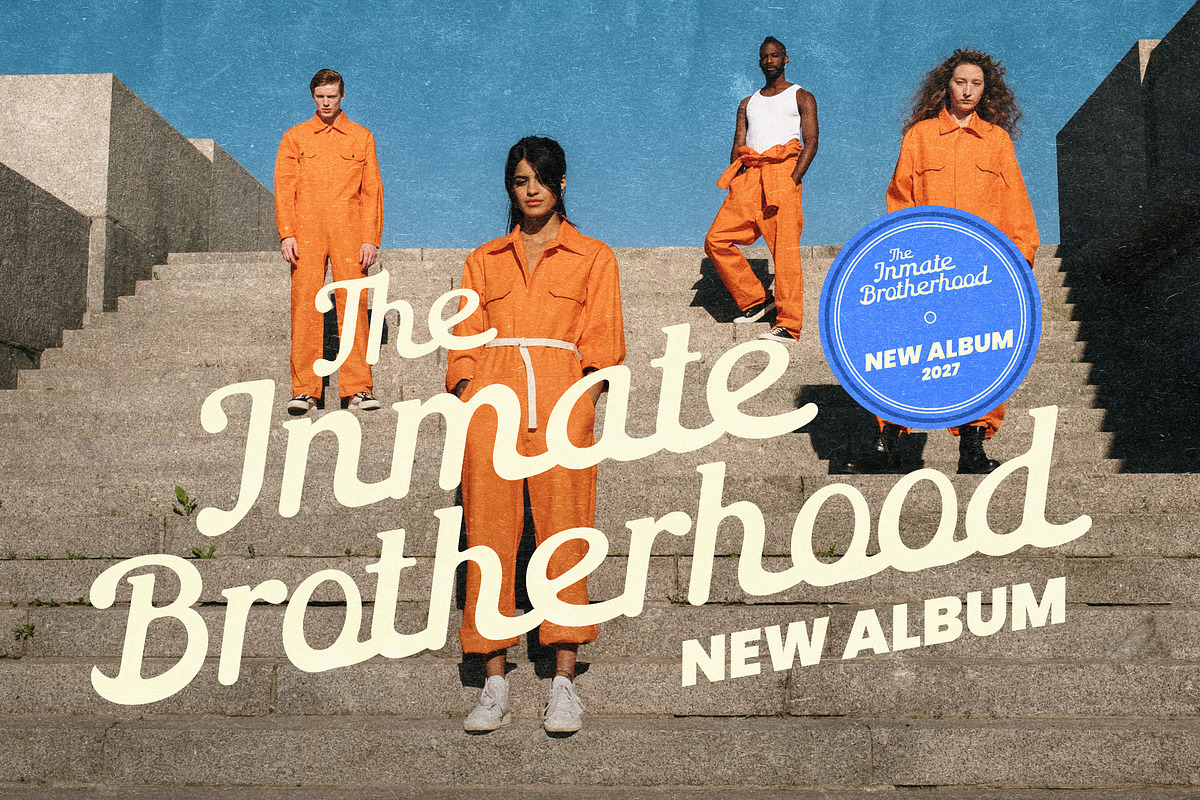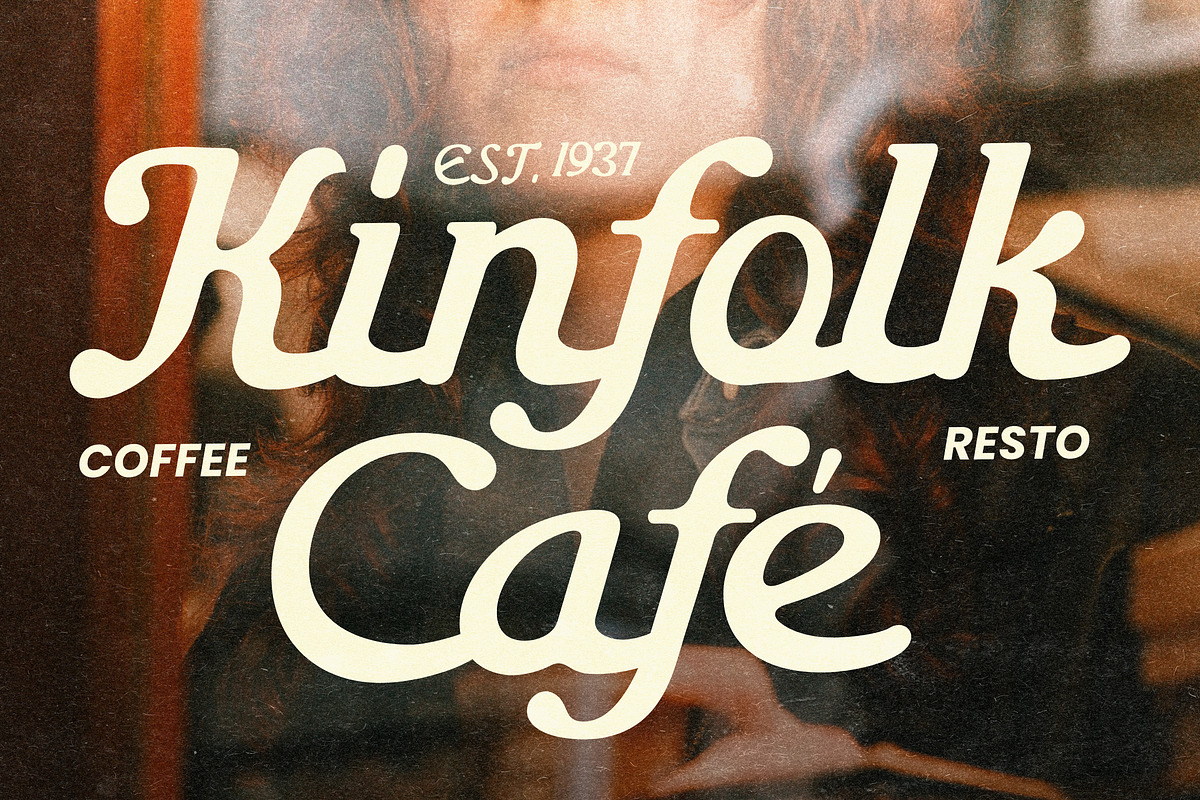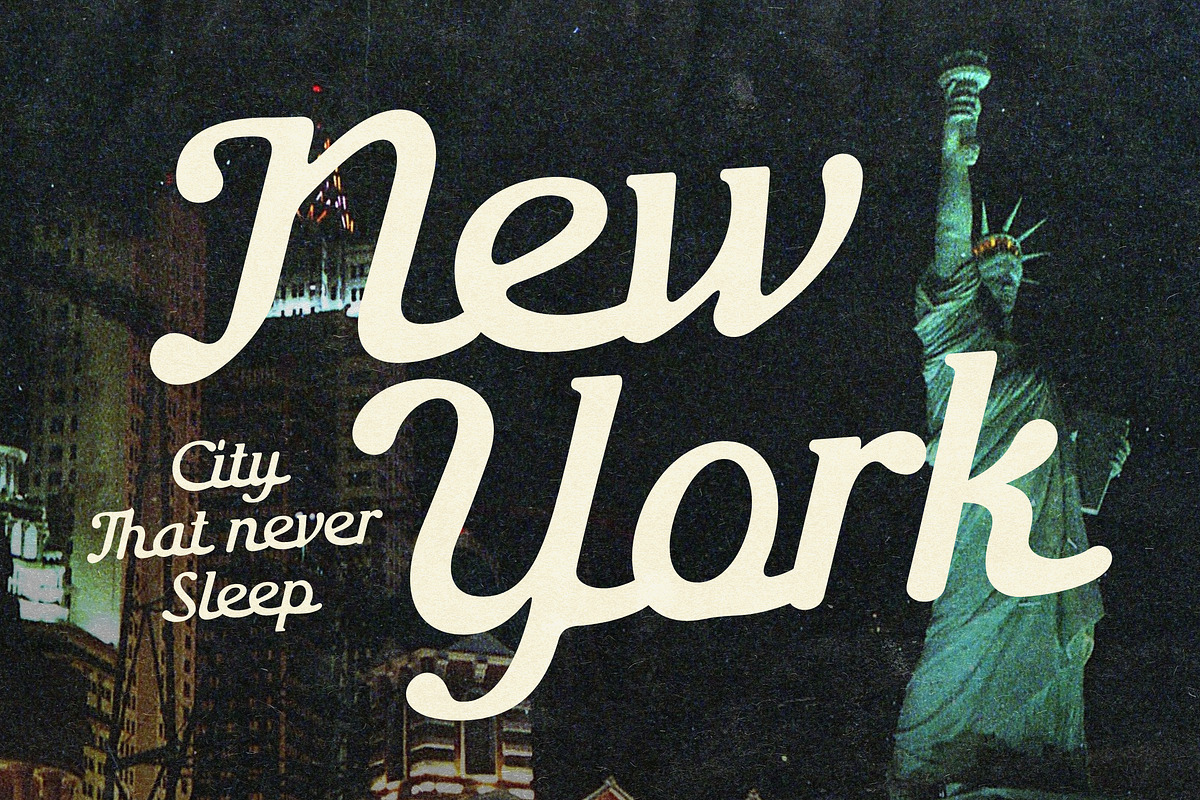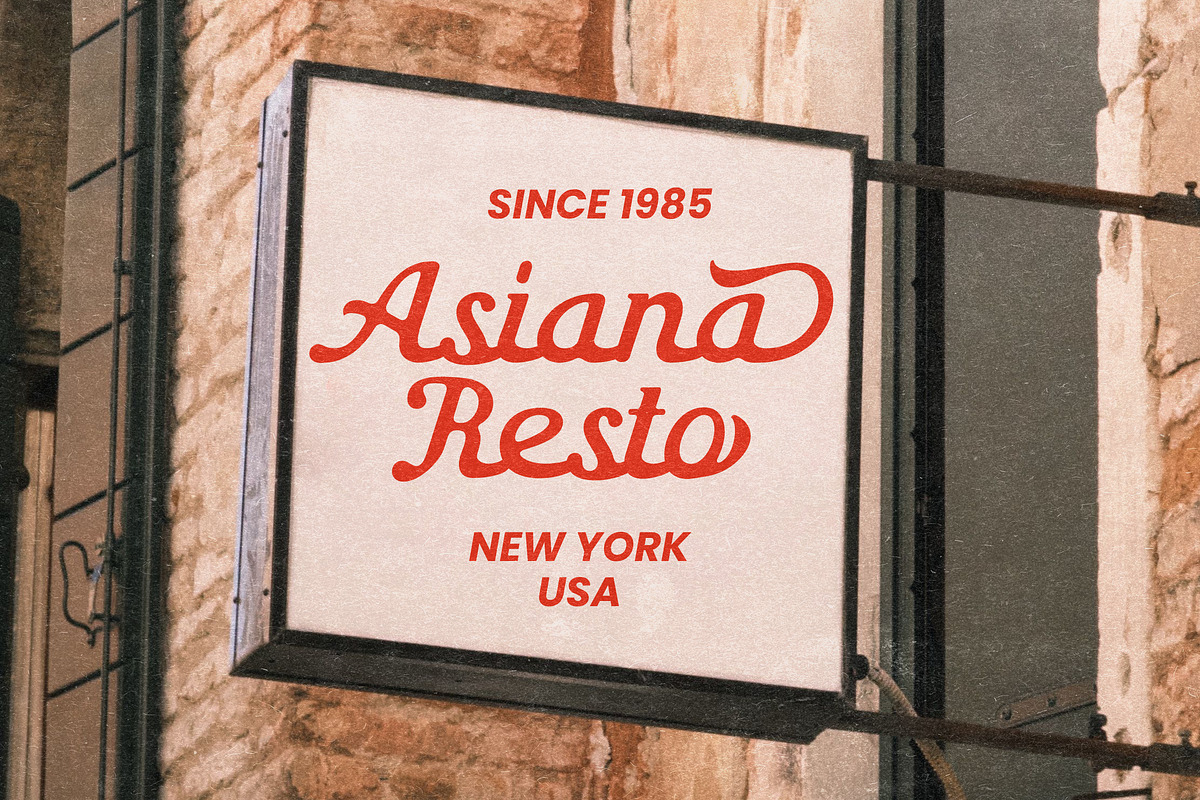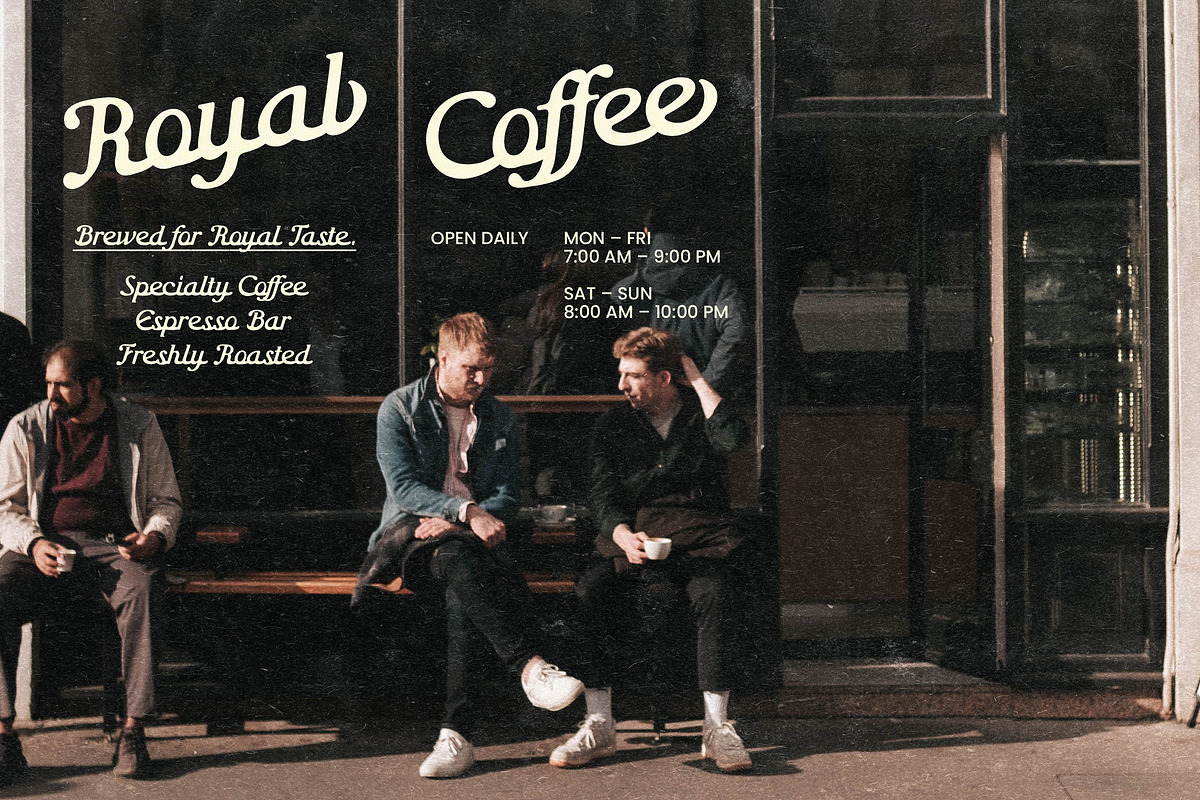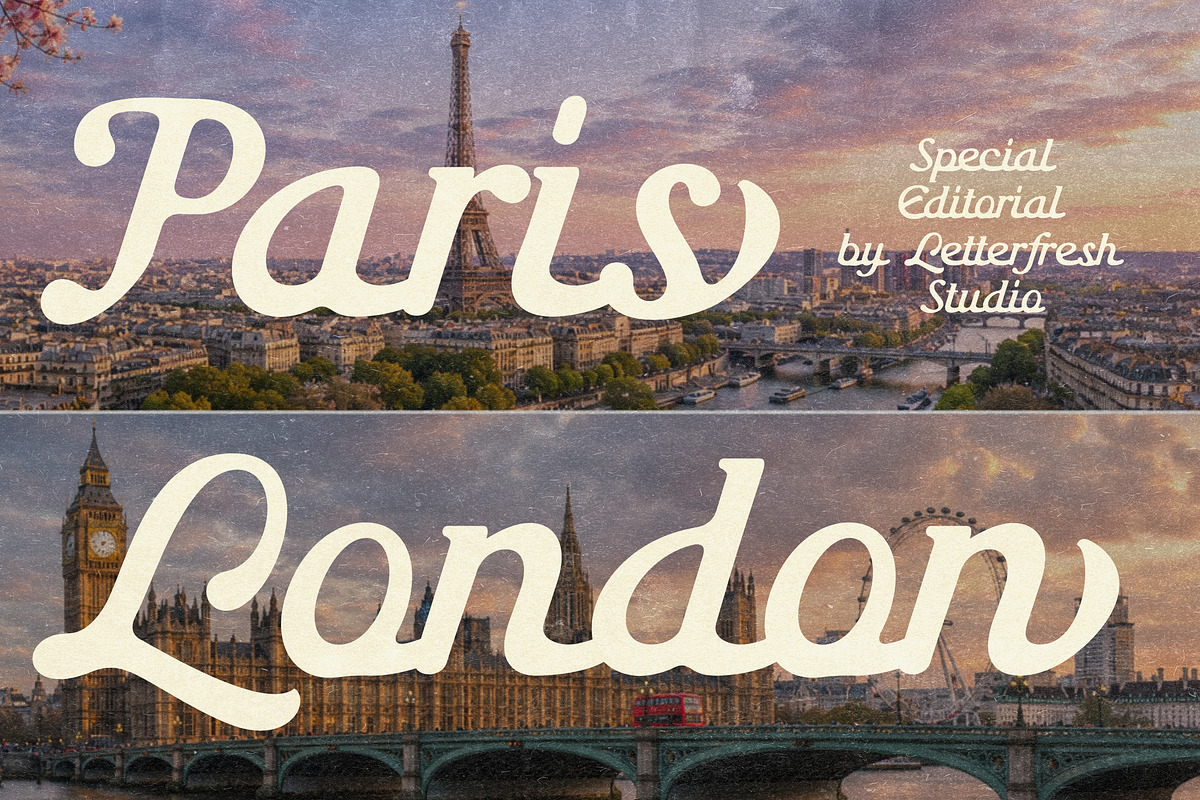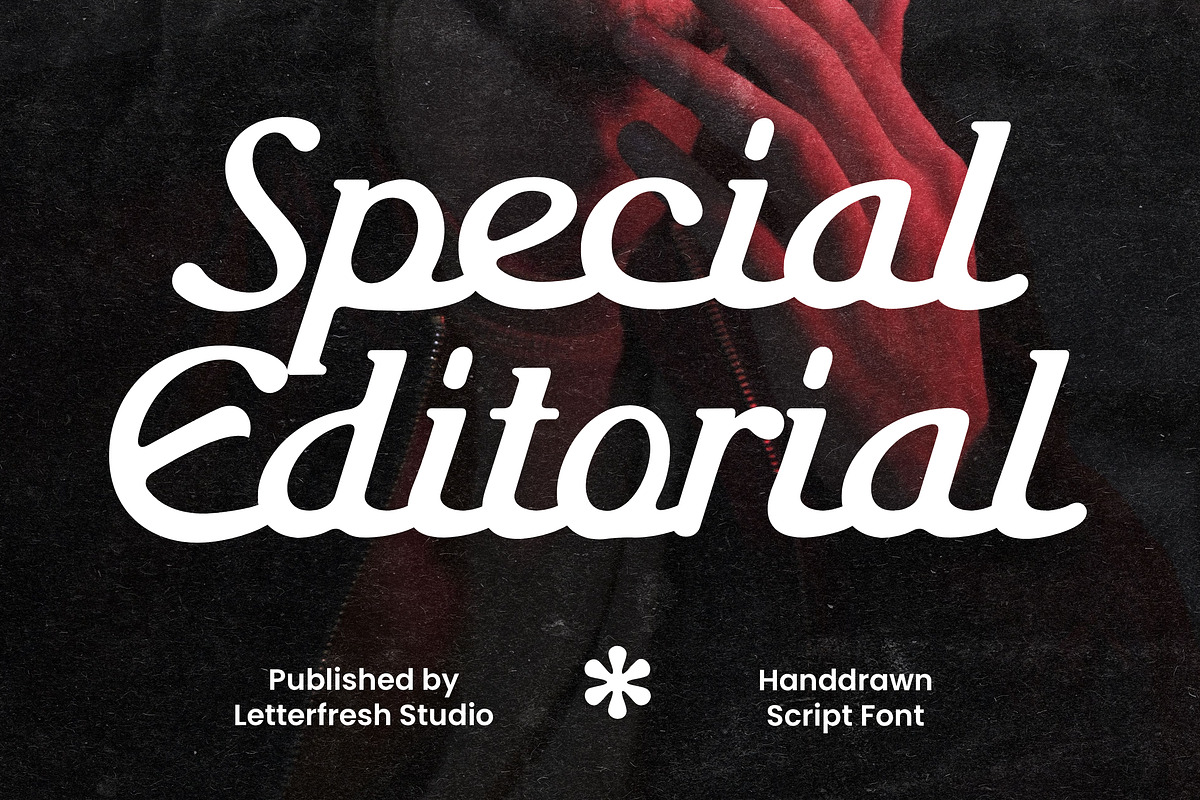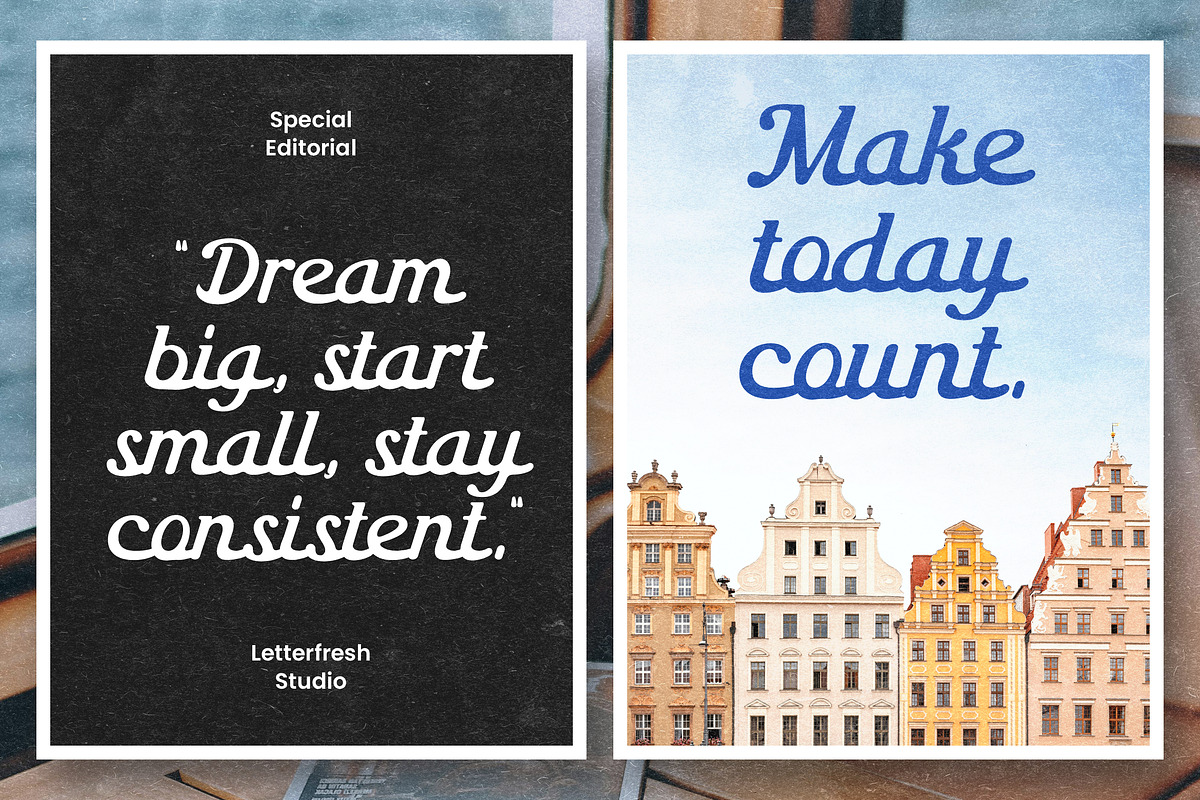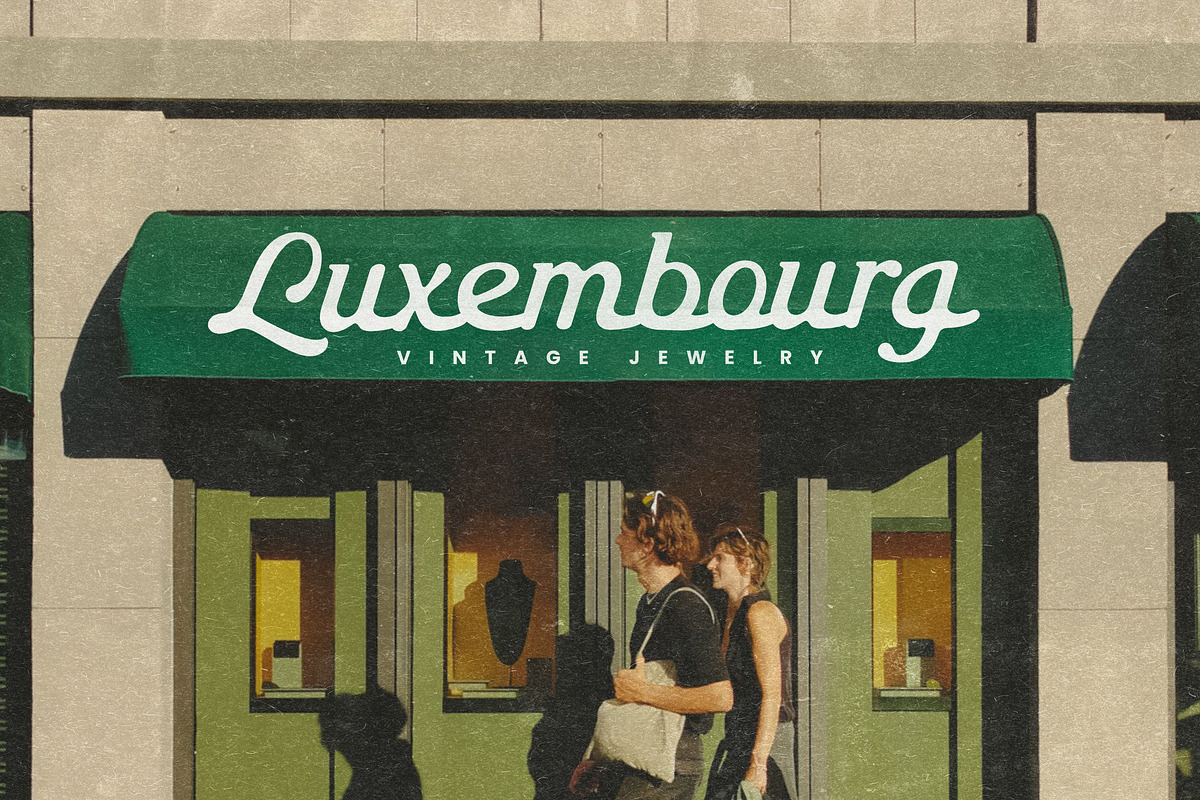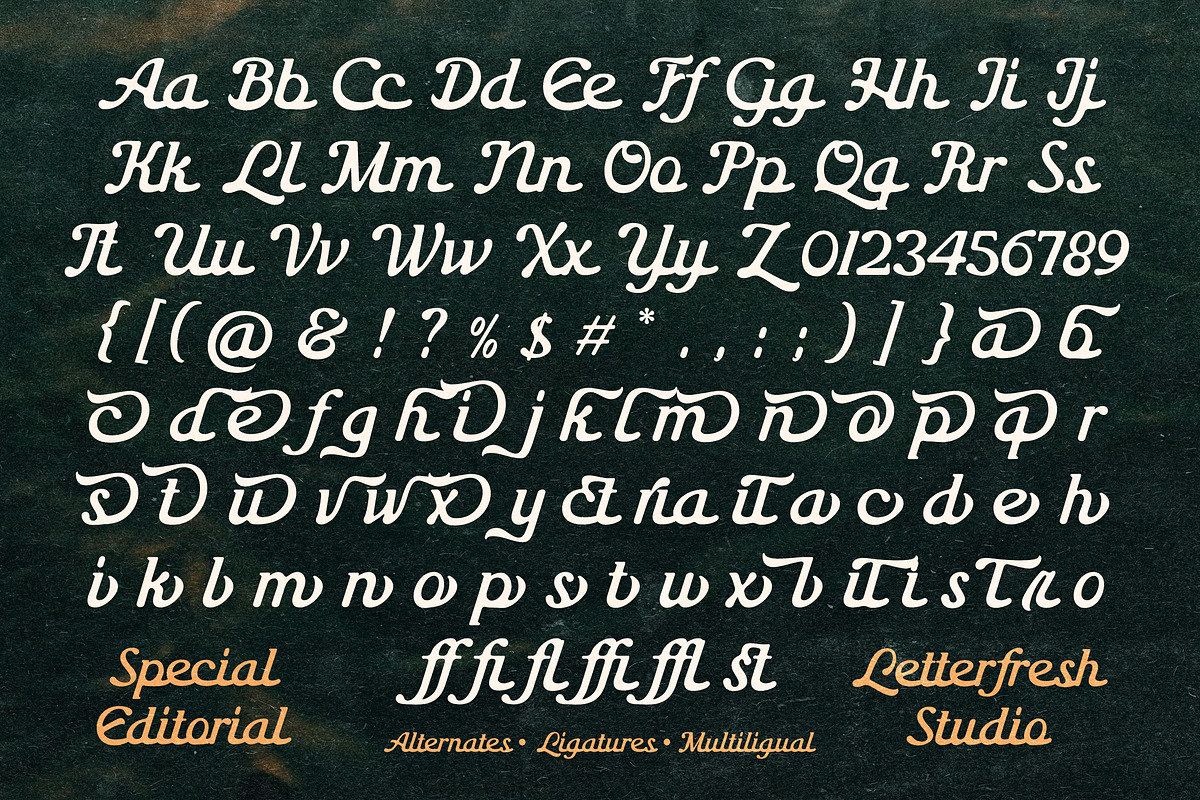
Special Editorial
Special Editorial is a hand-drawn script font that blends classic elegance with an artistic touch. Featuring smooth flowing letterforms, subtle thick-and-thin stroke contrast, and graceful decorative curves, this typeface delivers a refined, premium, and sophisticated appearance. Inspired by modern calligraphy with an editorial aesthetic, it is perfect for designs that aim to feel luxurious while maintaining a warm and personal character.
This font is ideal for a wide range of creative projects, including:
Luxury logos and branding
Magazine and editorial headlines
Product packaging
Wedding invitations
Posters and promotional materials
Social media content
Inspirational quotes and other creative designs
With its elegant and eye-catching style, Special Editorial adds a professional, timeless, and visually appealing touch to any design. It works best as a display typeface for headlines, titles, and other large-format text, where its distinctive curves and handcrafted details can truly shine.